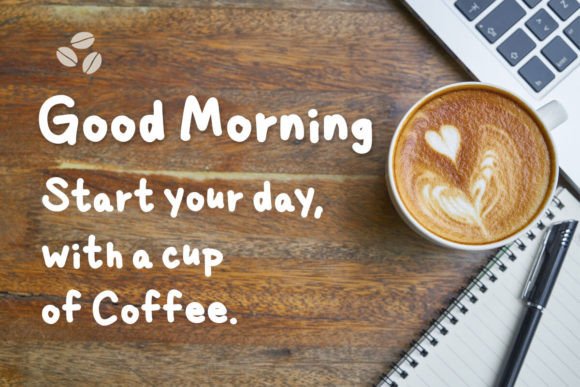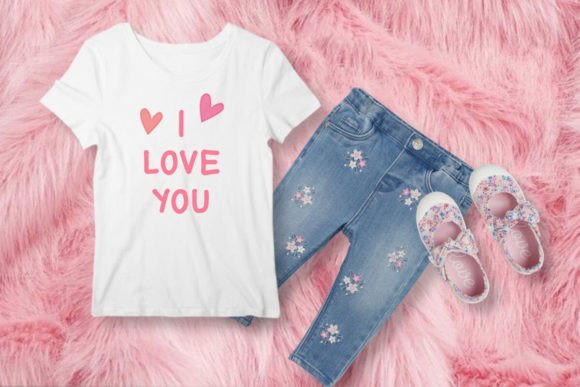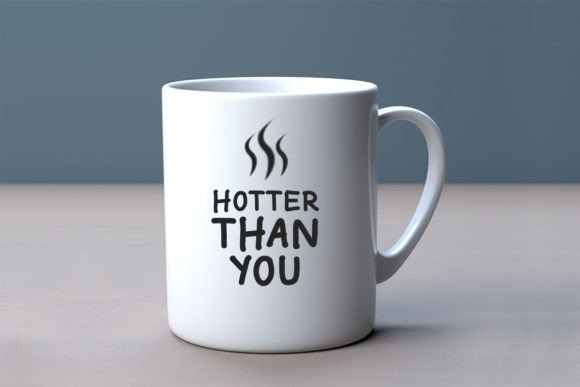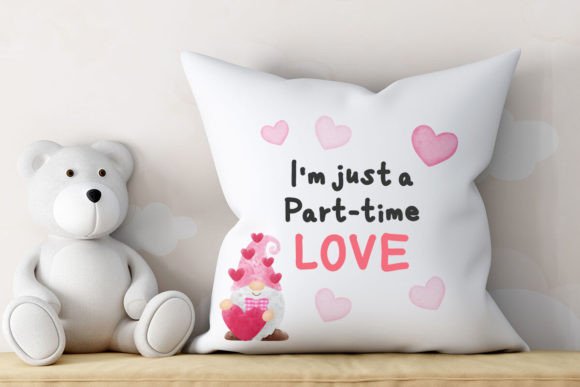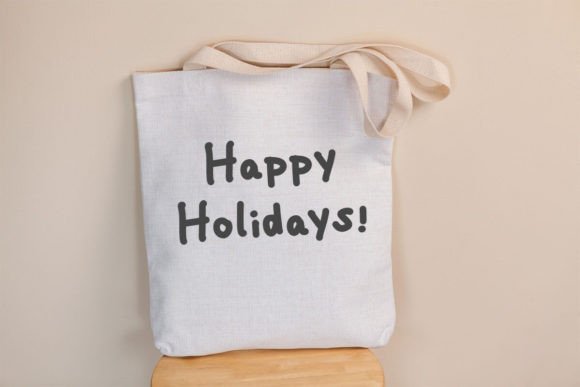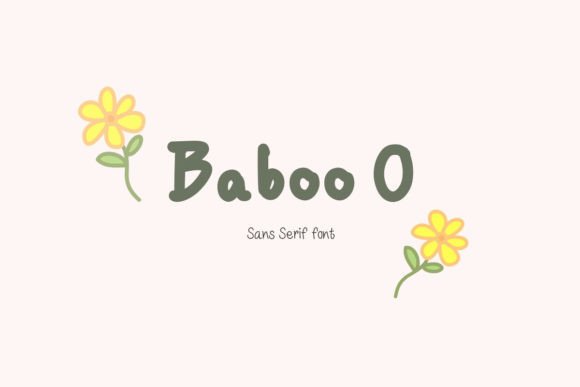
Baboo O Font: The Ultimate Sans Serif Font for Creative Projects
Are you a designer or crafter looking for a font that can add a touch of minimalism and adorability to your projects? Look no further than the Baboo O Font! This thick-lettered, sans serif font is perfect for a wide range of applications, from headlines and branding to packaging and party decorations.
What is Baboo O Font?
Baboo O Font is a unique and versatile font that is designed to be both visually appealing and highly functional. Its thick, bold letters make it perfect for creating eye-catching headlines, logos, and titles, while its minimal and clean design ensures that it will fit in seamlessly with a wide range of design styles.
Key Features of Baboo O Font
- Thick-Lettered: The Baboo O Font features thick, bold letters that are perfect for creating eye-catching headlines and titles.
- Minimal Design: The font’s minimal and clean design makes it perfect for a wide range of design styles, from modern and sleek to playful and whimsical.
- Adorable: The Baboo O Font has a playful and adorable quality that makes it perfect for projects that require a touch of personality and charm.
- Sans Serif: The font’s sans serif design ensures that it will be easy to read and understand, even at small sizes.
Uses for Baboo O Font
The Baboo O Font is incredibly versatile, and can be used for a wide range of projects and applications. Some ideas include:
- Headlines and Titles: The font’s thick, bold letters make it perfect for creating eye-catching headlines and titles.
- Branding and Packaging: The Baboo O Font is perfect for creating logos, labels, and packaging that requires a bold and attention-grabbing font.
- Back to School: The font’s playful and adorable quality makes it perfect for back to school projects, such as party decorations, thank you cards, and labels.
- Party Decorations: The Baboo O Font is perfect for creating party decorations, such as banners, signs, and invitations.
- Thank You Cards: The font’s playful and charming quality makes it perfect for creating thank you cards and other greeting cards.
- Quotes and Posters: The Baboo O Font is perfect for creating eye-catching quotes and posters that require a bold and attention-grabbing font.
- Logos: The font’s unique and versatile design makes it perfect for creating logos that require a bold and memorable font.
- Blogs and Websites: The Baboo O Font can be used to add a touch of personality and charm to blogs and websites.
- Clothing and Accessories: The font’s bold and attention-grabbing quality makes it perfect for creating custom clothing and accessories, such as T-shirts, bags, and hats.
Why Choose Baboo O Font?
There are many reasons why designers and crafters should choose the Baboo O Font for their projects. Some of the benefits of using this font include:
- Unique and Versatile: The Baboo O Font is a unique and versatile font that can be used for a wide range of projects and applications.
- Easy to Read: The font’s sans serif design ensures that it will be easy to read and understand, even at small sizes.
- Highly Customizable: The Baboo O Font can be customized to fit a wide range of design styles and requirements.
- Playful and Adorable: The font’s playful and adorable quality makes it perfect for projects that require a touch of personality and charm.
In conclusion, the Baboo O Font is a highly versatile and unique font that is perfect for designers and crafters looking to add a touch of minimalism and adorability to their projects. With its thick, bold letters, minimal design, and playful and adorable quality, this font is perfect for a wide range of applications, from headlines and branding to packaging and party decorations.